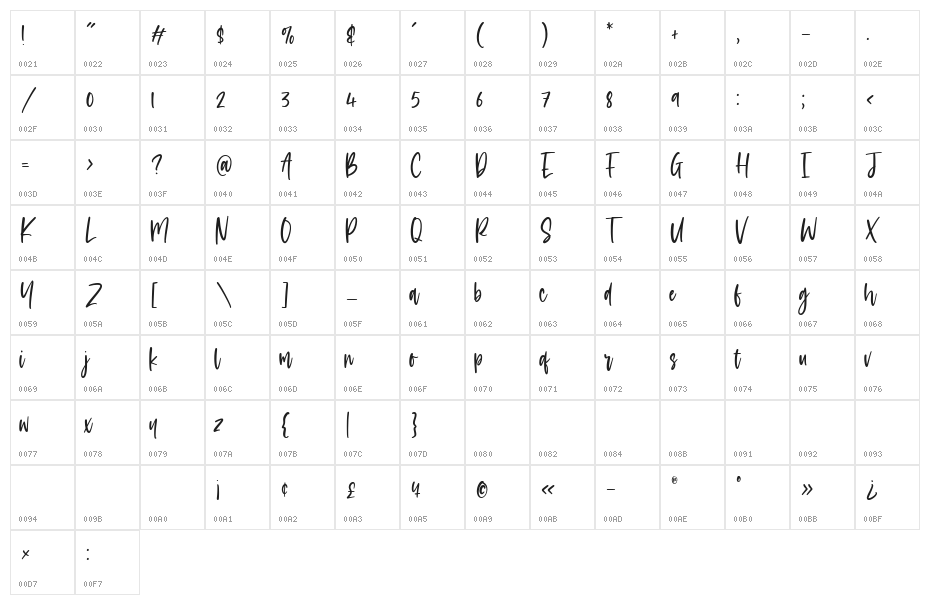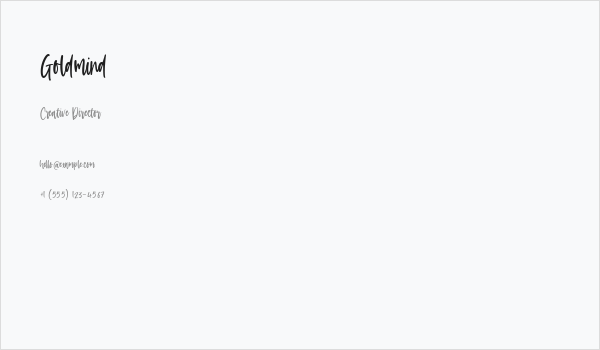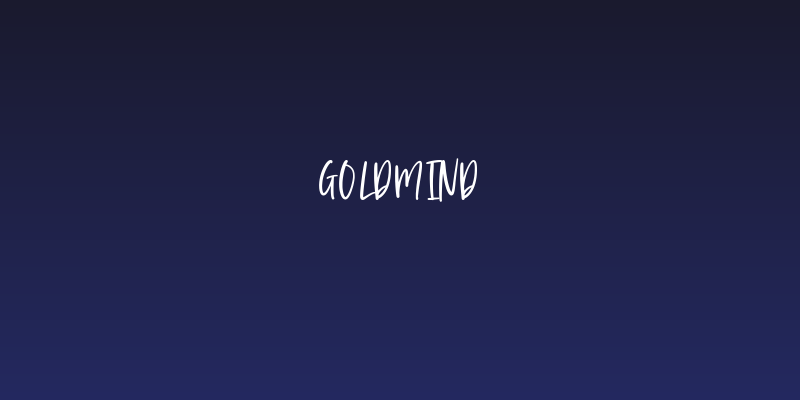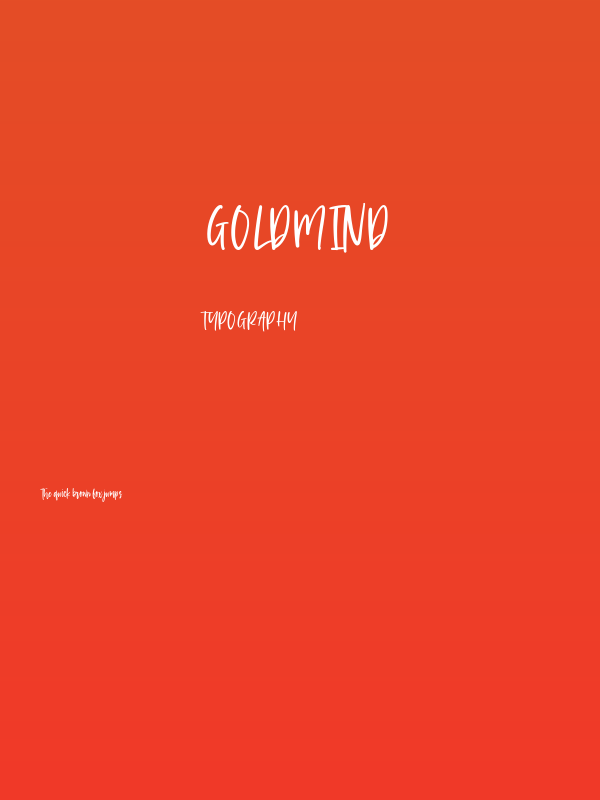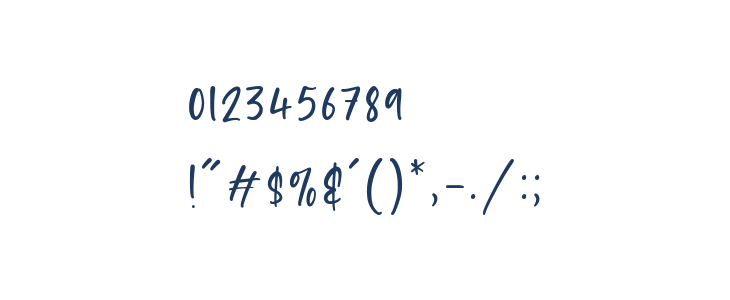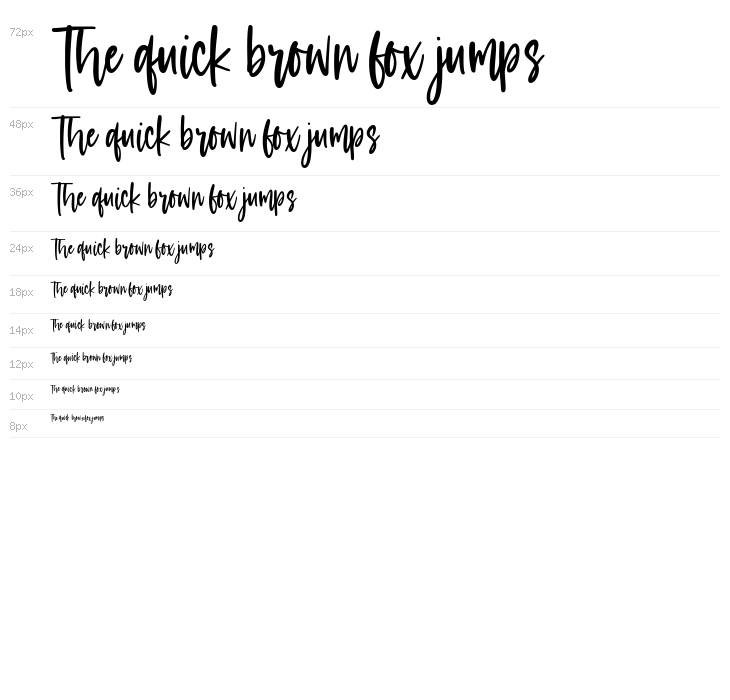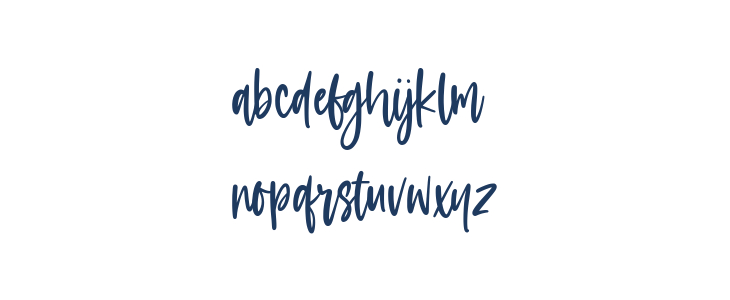
Goldmind Font
Goldmind Description
This font features a lively and expressive handwritten style, characterized by its fluid and dynamic strokes. The uppercase letters are bold and slightly slanted, giving a sense of movement and energy. The lowercase letters maintain a consistent flow, with some letters extending slightly below the baseline, adding to the casual and informal feel. The numerals are clear and legible, matching the playful aesthetic of the alphabet. Special characters are well-integrated, maintaining the overall handwritten theme. This font is perfect for projects that require a personal touch, such as invitations, greeting cards, or branding materials that aim to convey warmth and approachability.